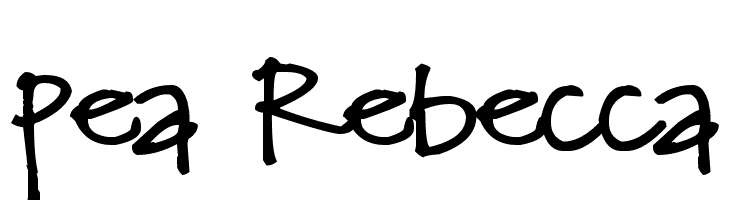
A casual, handwritten font with a playful and energetic style.
A playful, handwritten font with a casual and informal style.
A playful, handwritten font with bold, consistent strokes and a casual feel.
A playful, handwritten font with a casual and dynamic style.
A casual, playful handwritten font with a dynamic and informal style.
A bold, handwritten script font with a casual and playful style.
A playful, handwritten font with a casual, cursive-like style.